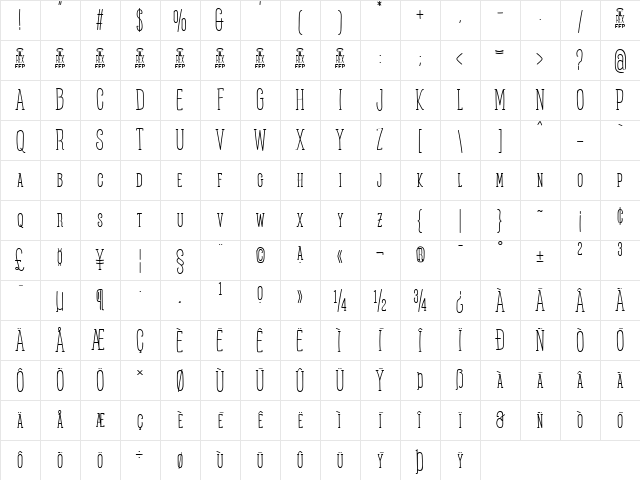
Posteratus Rex FFP Free Font
Posteratus Rex FFP
Style: FFP
Foundry: deFharo
Designer: Fernando Haro
Complete Posteratus Rex FFP glyph index. Displaying only characters natively supported by Posteratus Rex FFP font.
Design Context for Posteratus Rex
Posteratus Rex is a composed and adaptable typeface that performs quietly and consistently across a wide range of design contexts.